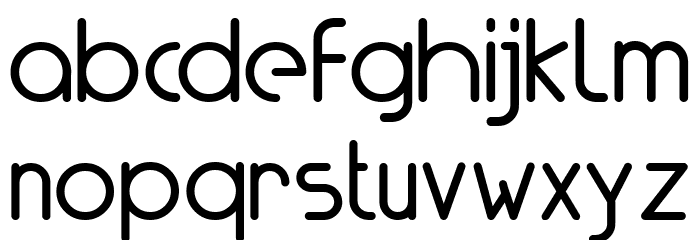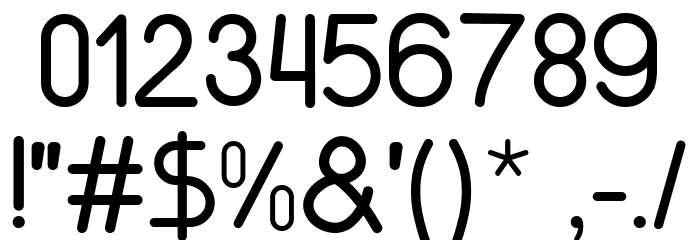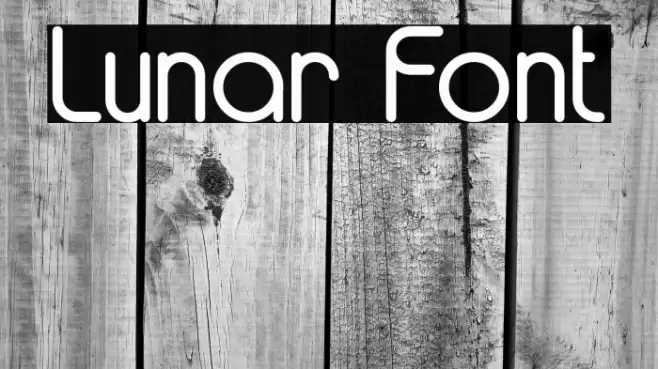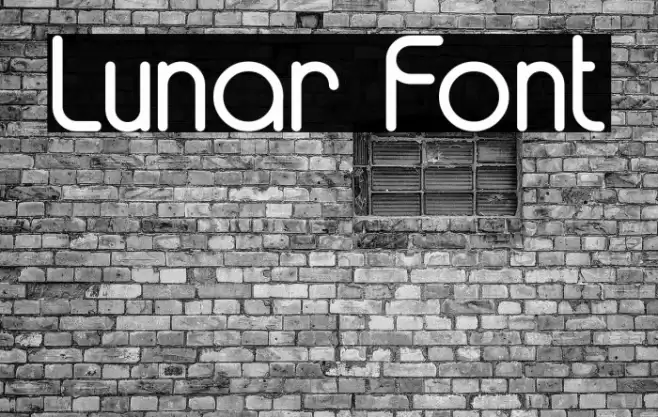
Lunar Font
This font features a modern, geometric design with rounded edges and a clean, futuristic appearance. The characters are evenly spaced, providing a balanced and harmonious look. The uppercase letters are distinct with a unique blend of curves and straight lines, while the lowercase letters maintain a consistent style that complements the uppercase. The numerals are clear and easy to read, matching the overall aesthetic of the font. Special characters are well-integrated, maintaining the font's cohesive design. This font is versatile, suitable for various design applications where a contemporary and sleek look is desired.
A modern, geometric font with rounded edges and a futuristic style.
- Proposed Projects: Ideal for tech branding, modern advertising, digital interfaces, and futuristic-themed projects.
- Use Case: Headlines, Logos, Digital interfaces